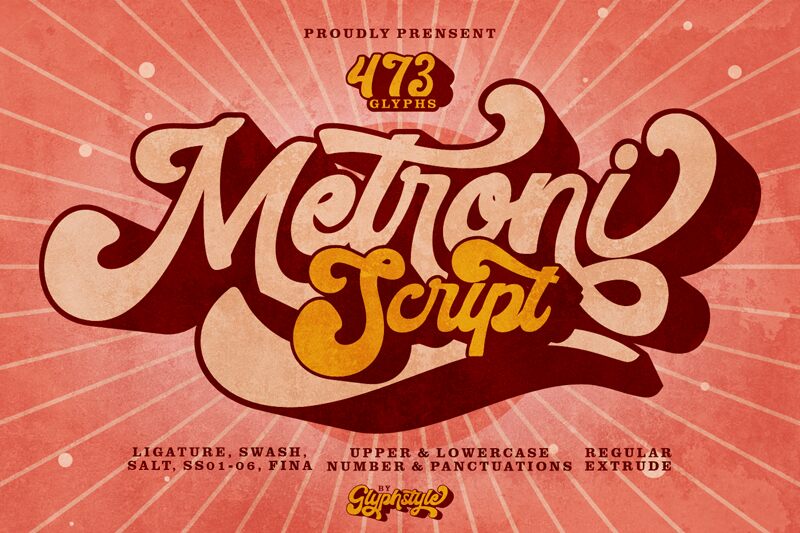
Metroni Demo
Metroni font, designed by Glyphstyle, is a striking retro script that effortlessly combines vintage charm with modern flair. Its bold presence captures attention with fluid, sweeping curves that evoke a sense of nostalgia while maintaining an energetic vibe. The unique character forms and rhythmic lettering create a visual dance that is both playful and sophisticated.
Ideal for eye-catching branding, stylish packaging, or vibrant signage, Metroni enhances any design with its distinct personality. Its robust design ensures legibility at various sizes, making it perfectly suited for headlines or promotional materials aimed at engaging an audience. This font’s irresistible appeal lies in its ability to infuse warmth and character into any project—truly a versatile choice for creative minds seeking to leave a memorable impression.